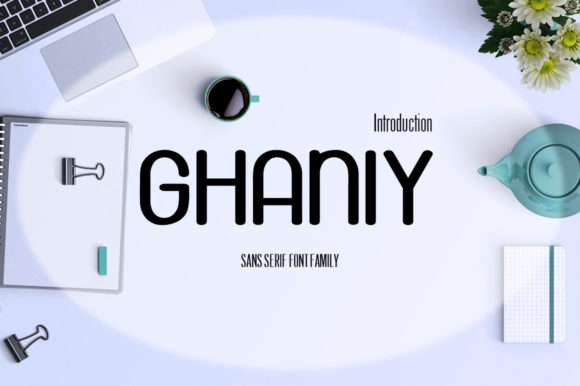
Introducing Ghaniy, the captivating sans-serif font that will instantly transform your designs with its chic and modern aesthetic. Crafted with meticulous attention to detail, Ghaniy exudes elegance and sophistication while maintaining a touch of playfulness.
Unleash your creativity with Ghaniy's versatility, perfectly adaptable to any project seeking a touch of contemporary flair. Its clean lines and flowing curves create a harmonious balance that elevates logos, branding, and web design. Whether you're crafting a striking logo that demands attention or a website that seamlessly blends style and functionality, Ghaniy is your font of choice.
Immerse yourself in a world of endless possibilities with Ghaniy. Its versatility knows no bounds, making it the ideal font for a wide range of projects, from sleek business cards to captivating social media posts. Discover the allure of Ghaniy today and elevate your designs to new heights of visual appeal.